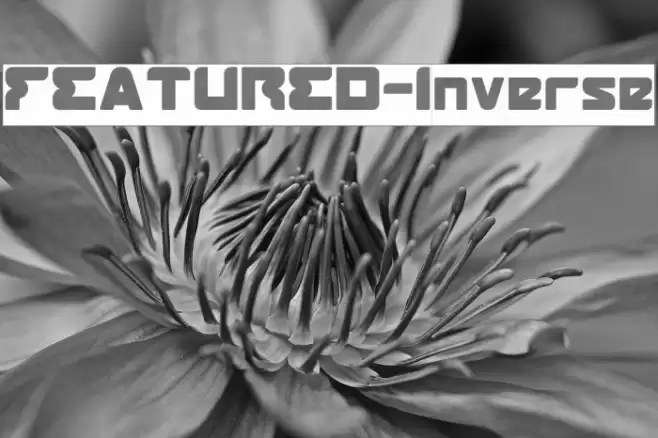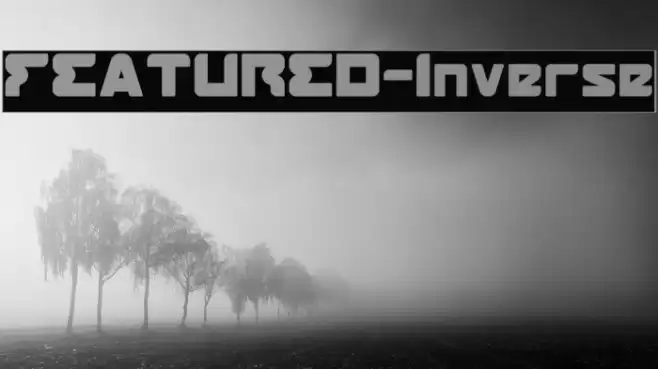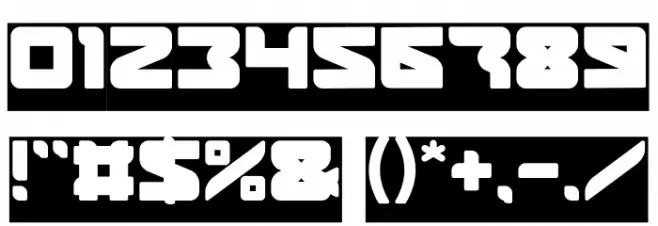
FEATURED-Inverse Font
FEATURED-Inverse Description
This font features a bold, geometric design with a futuristic and digital aesthetic. The characters are blocky and angular, with a distinct emphasis on symmetry and uniformity. The uppercase and lowercase letters maintain a consistent style, with rounded edges that soften the overall appearance. The numerals and special characters follow the same design principles, ensuring a cohesive look across all elements. The font's unique style makes it stand out, ideal for projects that require a modern and tech-savvy feel.
A bold, geometric font with a futuristic and digital aesthetic from Uncategorized fonts.
- Proposed Projects: Ideal for tech branding, video game titles, sci-fi movie posters, and digital interfaces.